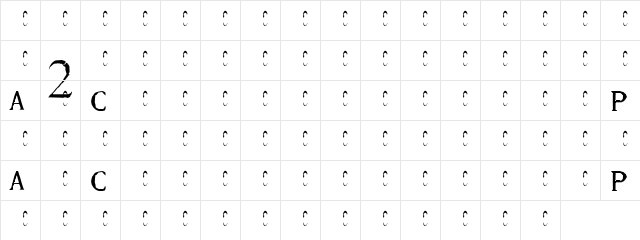
2pac Regular
Design Context for 2pac Typeface
2pac offers clean, dependable letterforms without strong stylistic allegiance, making it a practical choice for designers who need flexibility.
Pro Tip: Use 2pac in both headline and body roles to test its range before committing to a single application.